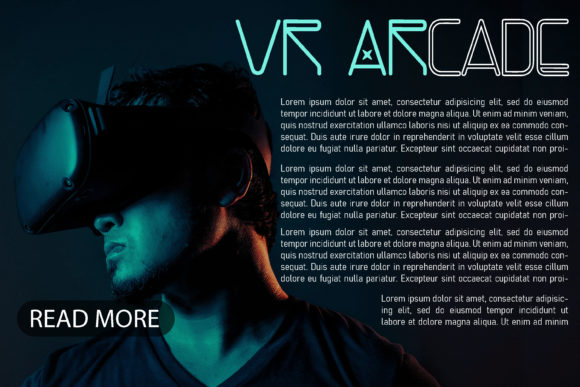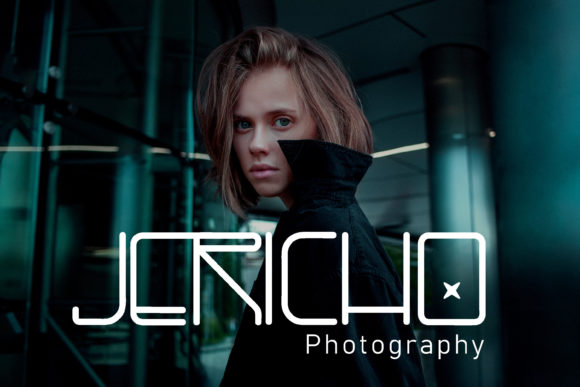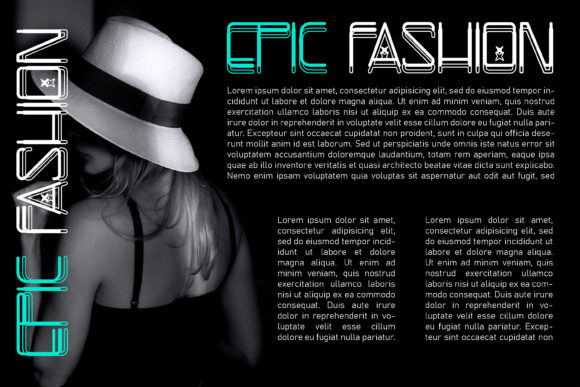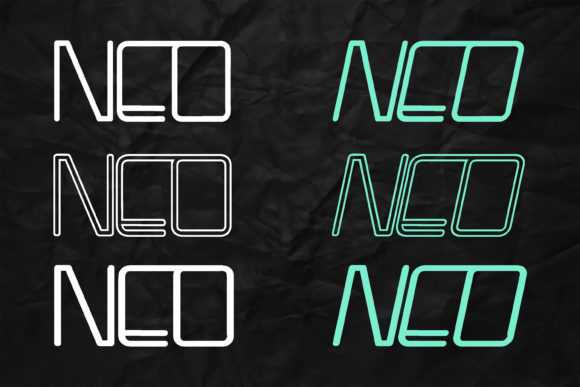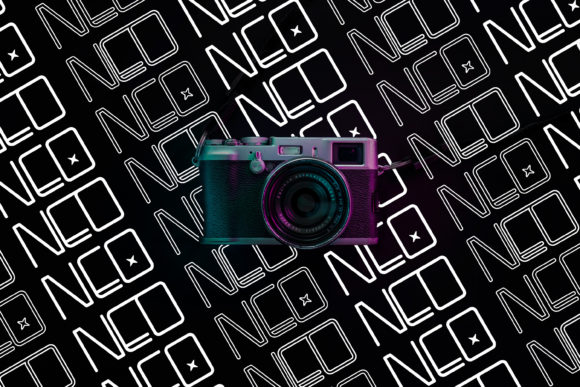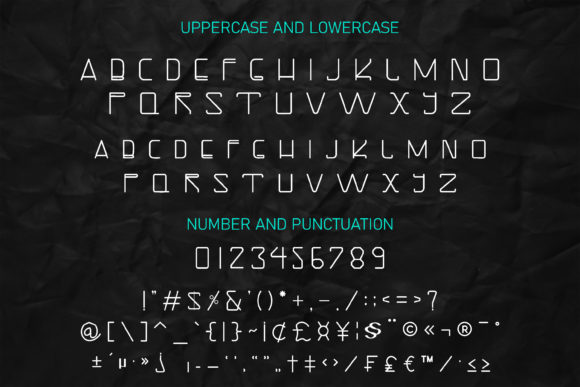
Introduction to Neo Font
Remember that moment when you’re working on a creative project and the perfect font just slips through your fingers? You envision a futuristic and minimalist design, but struggle to find the perfect display font to bring it to life. This is where Neo Font comes in – a modern, high-quality design resource that’s sure to elevate your designs.
Whether you’re a seasoned designer or just starting out, Neo Font is a valuable addition to your toolkit. With its flawless precise strokes and versatile uses, this font is perfect for everything from wedding invitations and logos to social media posts and product packaging designs. Plus, its PUA encoding makes it easy to access all of the glyphs, alternates, and ligatures you need to take your designs to the next level.
Key Features of Neo Font
- High-Quality Design Resource: Neo Font is a premium font designed to meet the demands of creative projects, offering a unique and elegant style.
- Unique Characteristics: The font features a unique blend of modern and vintage elements, making it perfect for use in creative projects that require a touch of elegance and sophistication.
Honest Review: Neo Font
As a designer, I’m always on the lookout for high-quality design resources that can elevate my creative projects. Recently, I had the opportunity to try out the Neo Font, and I’m excited to share my honest review.
- ✨ High-quality glyphs and characters that render beautifully on various devices.
- ⚠️ Limited customization options, which may not be suitable for designers who prefer a more personalized look.
Overall, I’m impressed with the Neo Font’s clean and modern design aesthetic. While it may not be perfect for every project, it’s definitely a solid choice for designers who need a high-quality font without breaking the bank. With a little creativity and experimentation, I’m confident that you can achieve amazing results with this design resource.